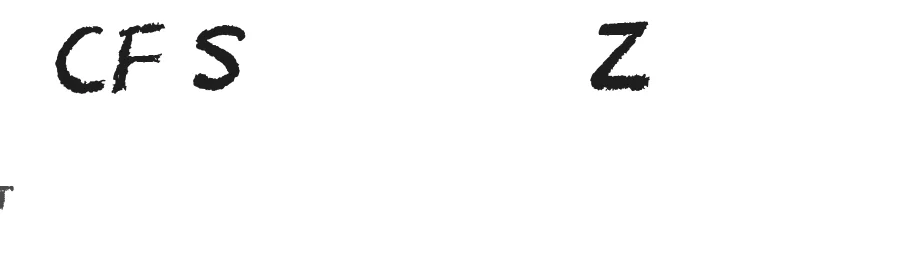
About Nas Coxas Font
I drawed the font to look like it's made with correction fluid. It has only capital letters. Free for personal use. If you like the font please make a small donation on paypal link! Thanks!
Nas Coxas Font
by Kist